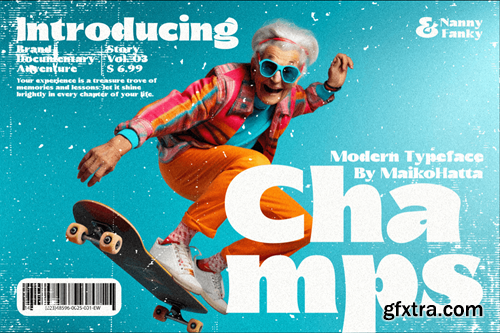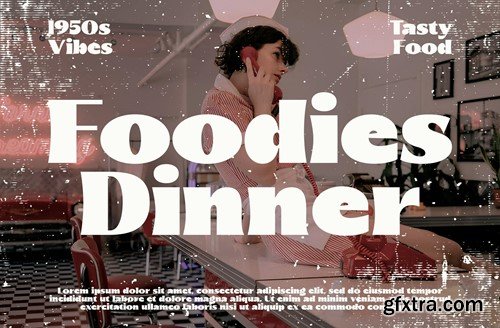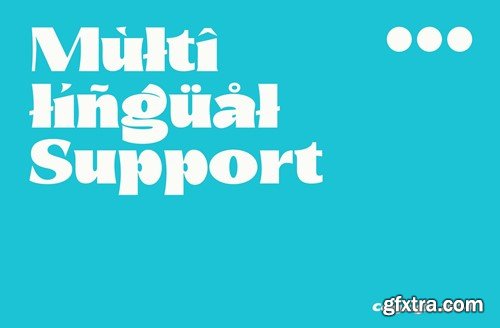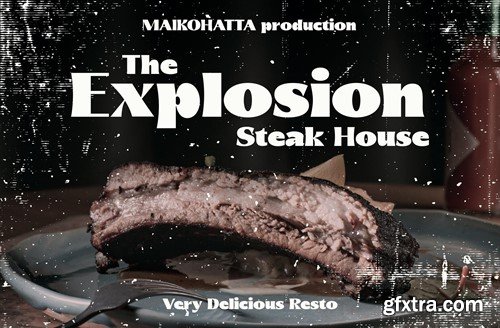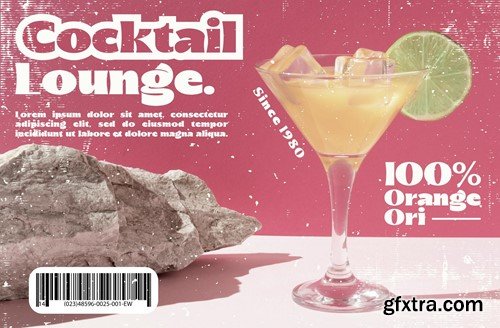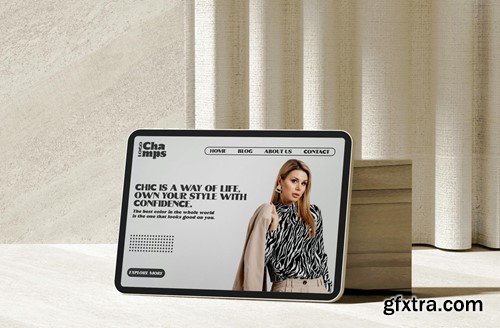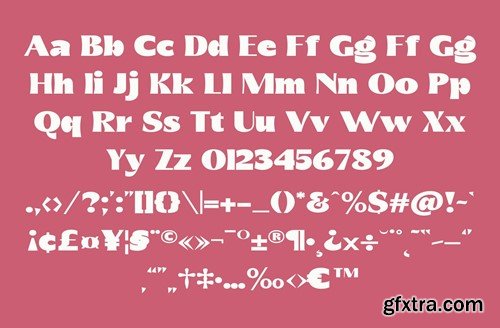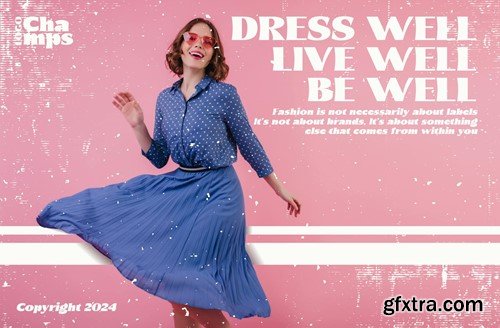
Champs - Modern Sans Serif Typeface 5EJ4UF5
Champs - Modern Sans Serif Typeface
Introducing our new product Champs - Modern Sans Serif Typeface
Champ Modern Font is a bold and authentic display font. The font is suitable for any branding project like logo, Template Design, esport, and many more. outstanding in a wide range of contexts.